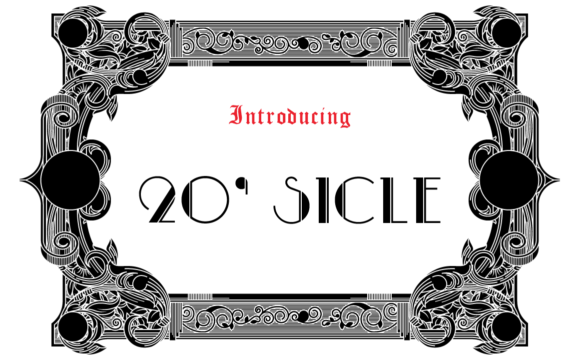
The Revival of Retro Chic: Uncovering the Charm of 20’Siecle Font
As a designer, there’s nothing quite like the thrill of stumbling upon a vintage advertisement or an old movie poster that sparks your creativity. The nostalgic feel of classic typography and the era’s unique flair can transport you to a bygone era, and for many designers, that’s exactly the inspiration they need to bring their projects to life. For those who have been searching for the perfect font to evoke that mid-century magic, the 20’Siecle Font is a game-changer.
This stylish font is a masterful blend of modern and vintage elements, making it an ideal choice for designers who want to add a touch of sophistication to their projects. With its versatility and broad appeal, the 20’Siecle Font is perfect for advertising, packaging, and more – a true workhorse for creatives who demand a little bit of retro charm in their designs.
20’Siecle Font Key Features
- Unique Characteristics: Features a distinctive, nostalgic aesthetic with a mix of modern and vintage elements, making it perfect for designs that require a touch of elegance and sophistication.
- Font Family: Includes a range of weights, from Light to Bold, allowing designers to choose the perfect font weight to match their design needs.
- Kerning and Ligatures: Includes advanced kerning and ligature features, ensuring that the font looks polished and professional in both body text and display typography.
Designer Review: 20’Siecle Font
Overall, I think 20’Siecle Font is a solid choice for designers looking to evoke a sense of nostalgia and vintage flair. Here are some aspects that shine ✨:
- Unique Character**: The font’s blend of geometric and organic elements creates a distinctive look that’s both modern and retro.
- Flexibility**: 20’Siecle Font works well in a variety of settings, from print to digital, and is suitable for a range of applications, including headings, body text, and even logos.
- Stylish Alternates**: The font includes a range of stylish alternates and swashes that add an extra layer of personality and flair.
However, there are some limitations to consider ⚠️:
- Legibility**: At small font sizes, some characters can become difficult to read, which may be a concern for certain applications.
In conclusion, while 20’Siecle Font has its limitations, its unique character and flexibility make it a great choice for designers looking to add a touch of vintage flair to their work. With some careful consideration of font sizes and compatibility, this font can be a valuable addition to any designer’s toolkit.
20’Siecle Font Practical Application Guide
For a vintage look, pair 20’Siecle Font with distressed textures and warm color schemes.
For a unique look, experiment with layer blending modes and texture overlays.
For a classic look, pair 20’Siecle Font with traditional layouts and simple designs.
Use 20’Siecle Font for:
- Vintage-inspired designs
- Classic book covers
- Wedding invitations
- Advertising and branding
Experiment with different font sizes, colors, and styles to achieve a unique look.
Alternatives to 20’Siecle Font for Designers
Playfair Display is an elegant, high-end serif font that works well for luxury brands, invitations, and high-end publications. It features a classic feel with intricate details and ornaments, making it a great alternative to 20’Siecle Font for designers who want to convey sophistication and refinement.